A futuristic look is the perfect way to give your work a more optimistic feel, and the right typography ought to seal the deal. Nobody knows exactly …
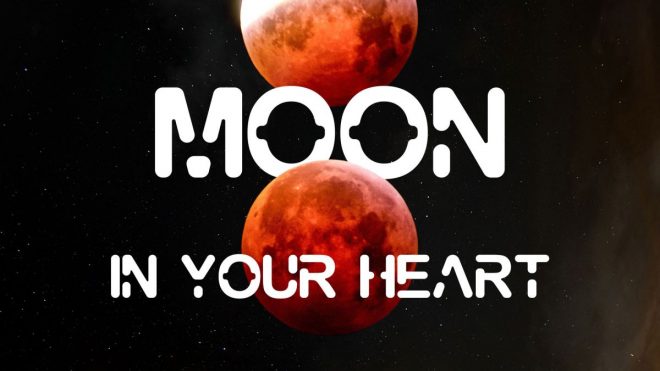
A futuristic look is the perfect way to give your work a more optimistic feel, and the right typography ought to seal the deal. Nobody knows exactly …